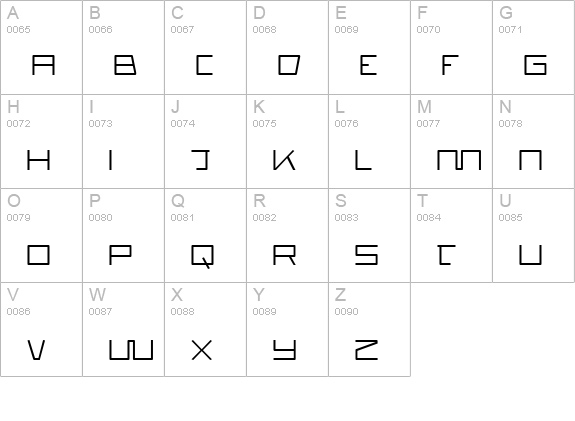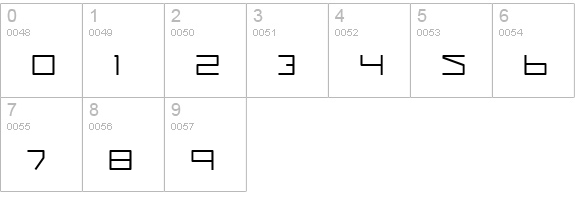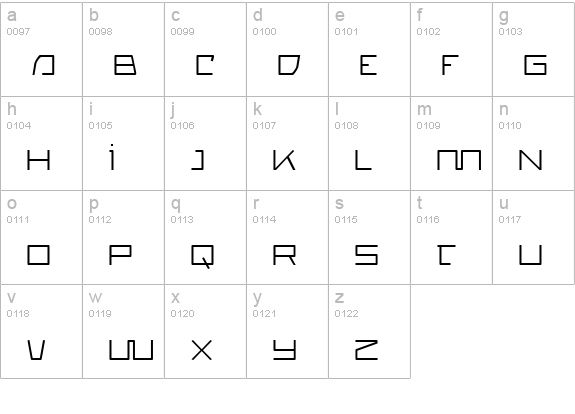
Quasitron Font Details
Quasitron font is a sleek and modern typeface that embodies a perfect blend of sophistication and creativity. Its sharp angles and clean lines give it a futuristic vibe that is both eye-catching and versatile. The unique geometric shapes of Quasitron make it perfect for a wide range of design projects, from branding to editorial design. Best of all, Quasitron font is available for free download at FontsMarket.com, making it easily accessible to designers and creatives looking to elevate their work with a distinctive and contemporary typeface. Whether you're designing a website, creating a logo, or crafting a poster, Quasitron font will add a touch of modern elegance to your projects. Download Quasitron font today and take your designs to the next level!